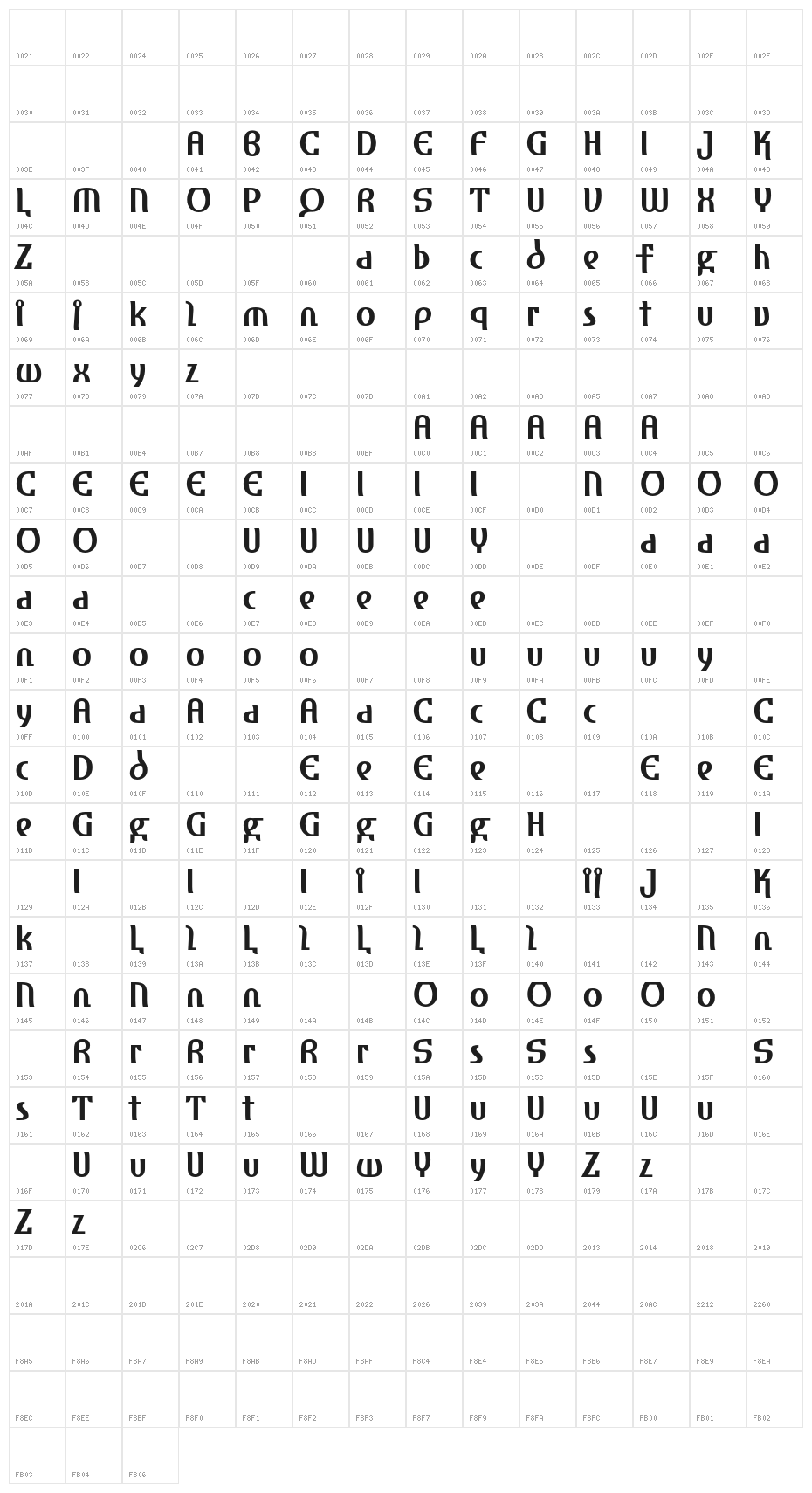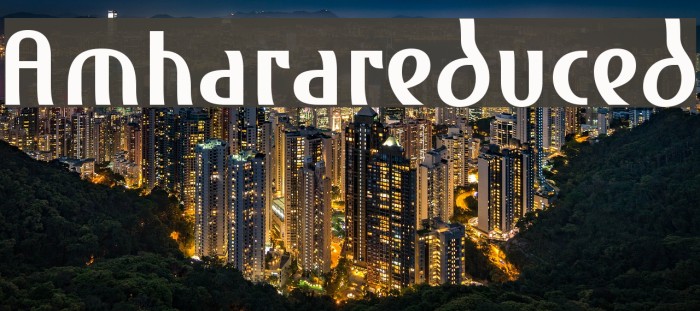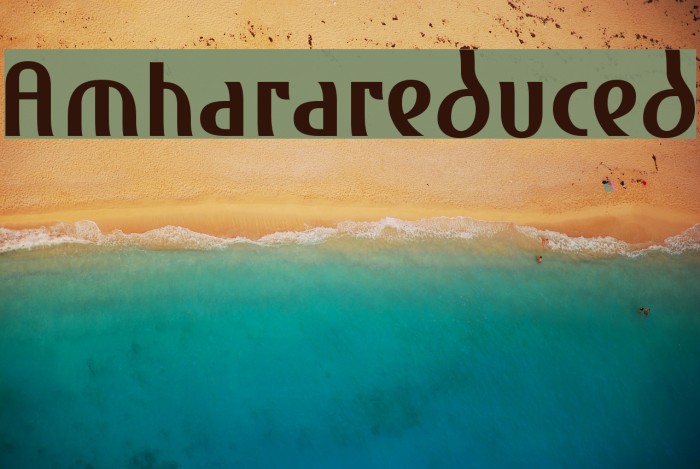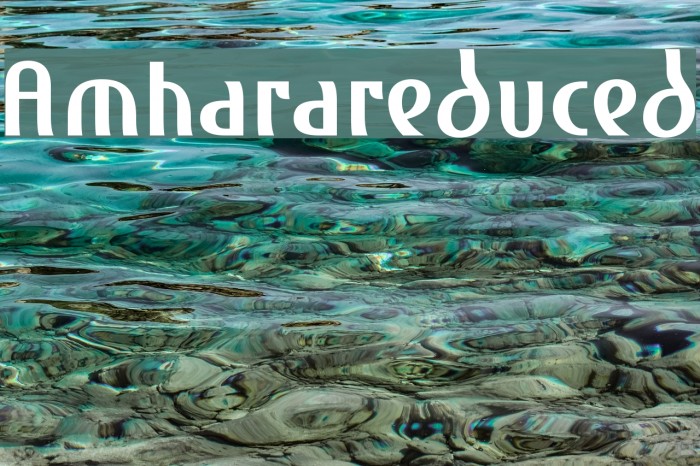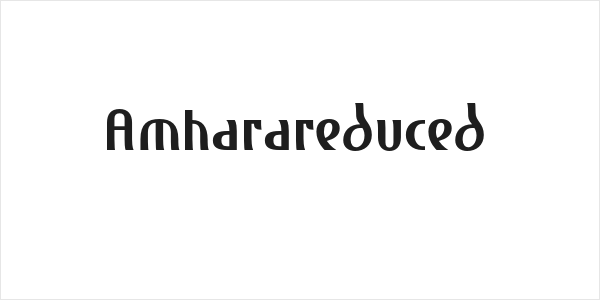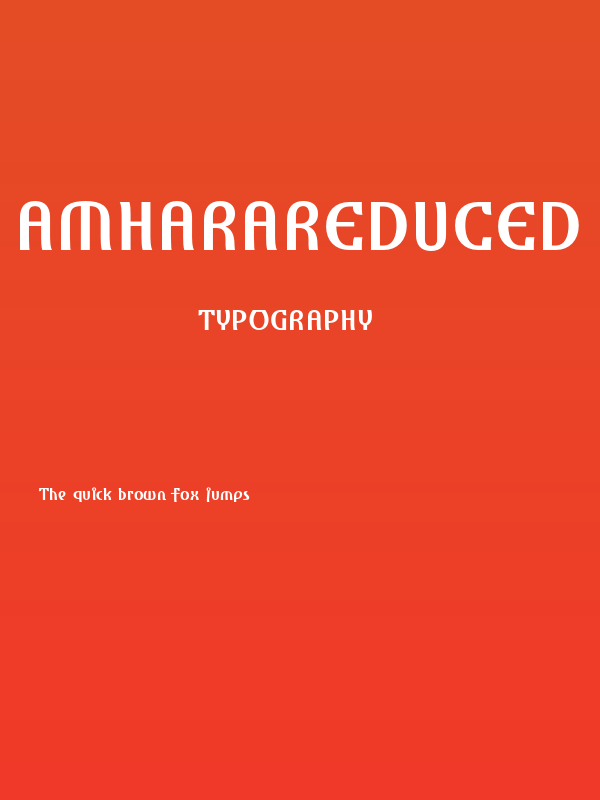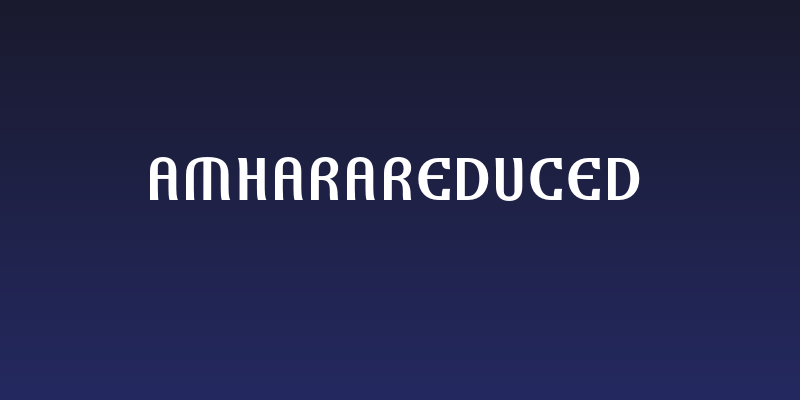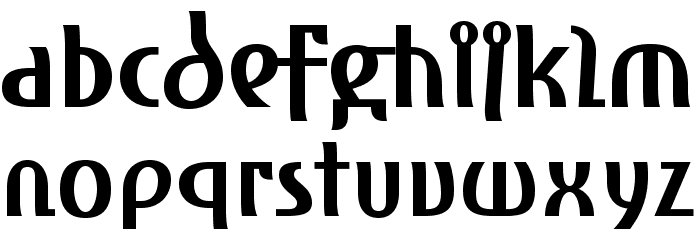
Amharareduced Font
Amharareduced Description
This font features a unique blend of traditional and modern elements, characterized by its distinctively curved and angular letterforms. The uppercase letters exhibit a bold presence with a slight inward curve at the terminals, creating a sense of movement and fluidity. The lowercase letters maintain a consistent style, with some characters displaying playful loops and hooks that add a touch of whimsy. The overall design is both artistic and functional, making it suitable for a variety of creative applications. The font's structure is well-balanced, with a moderate contrast in stroke thickness that enhances readability while maintaining its decorative appeal.